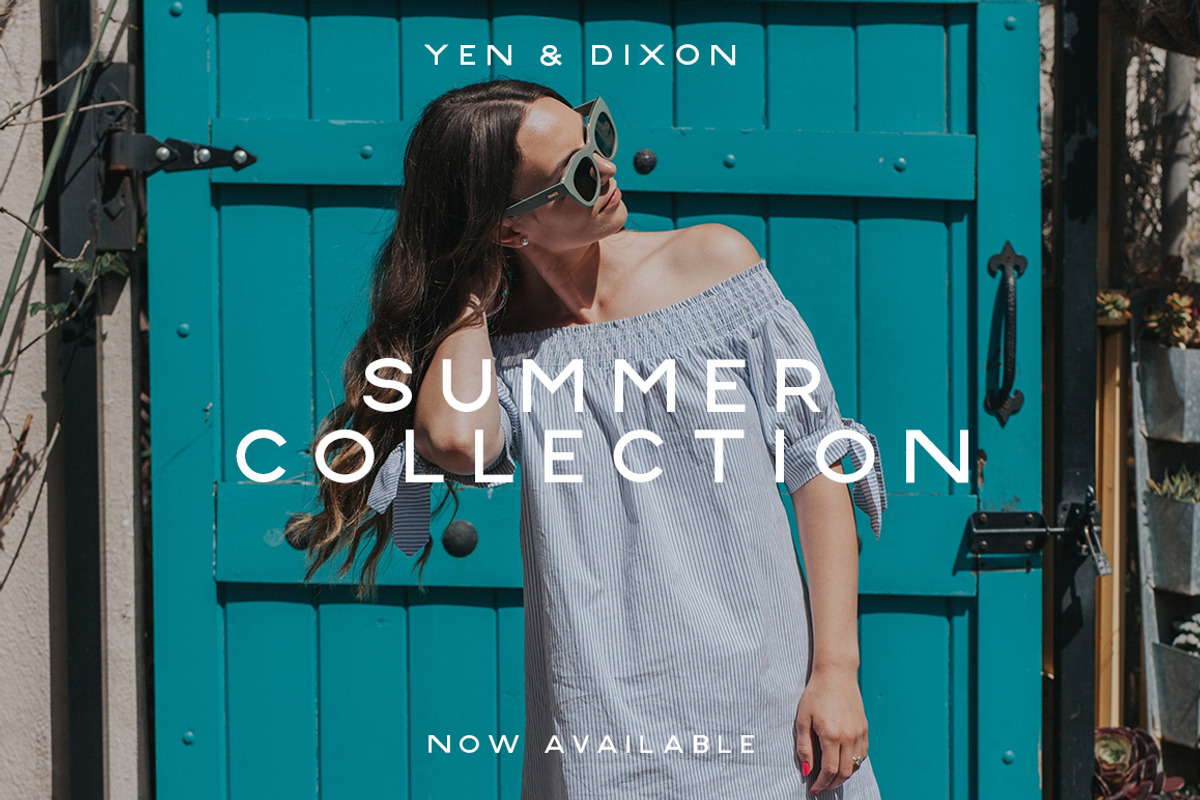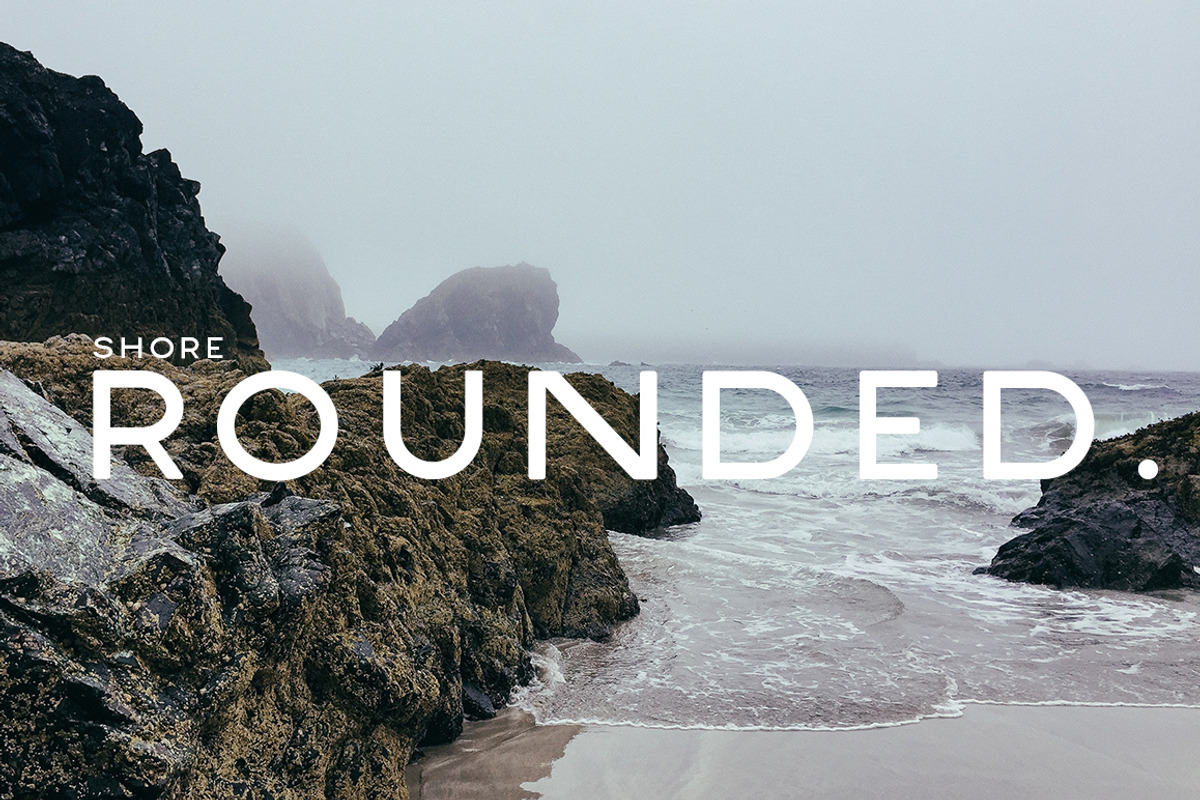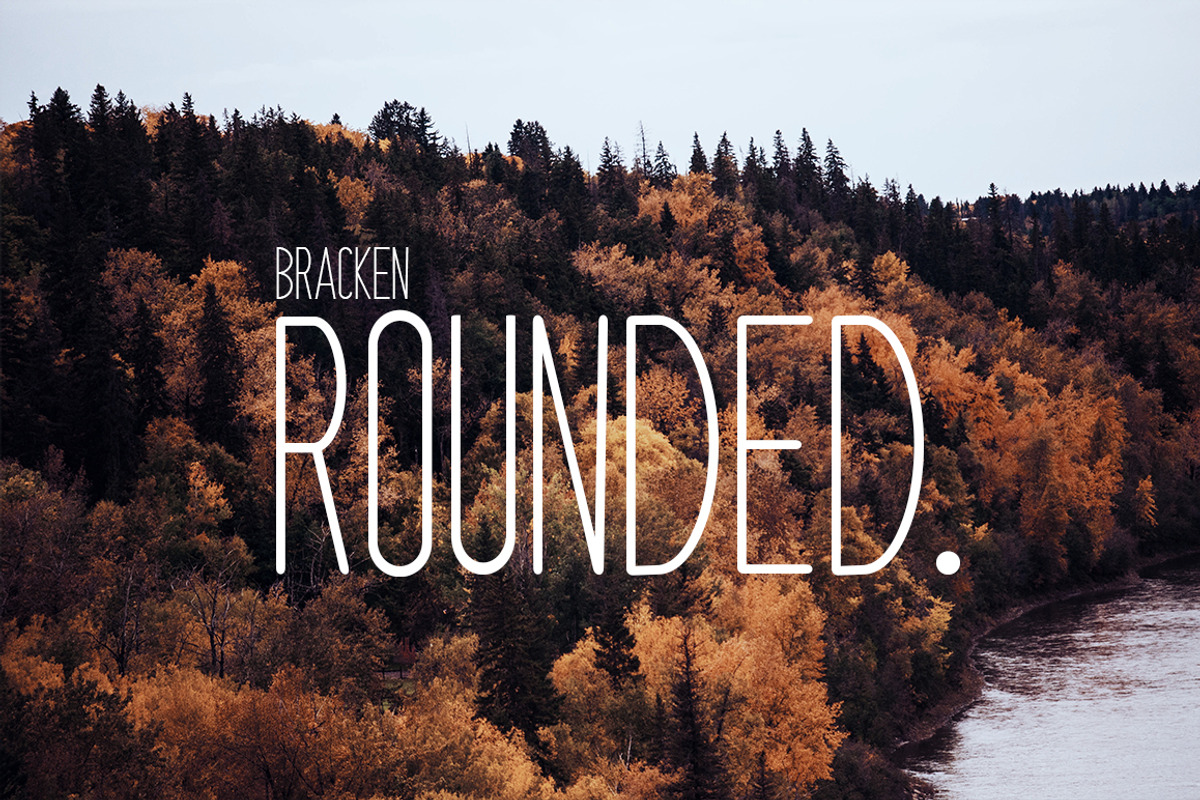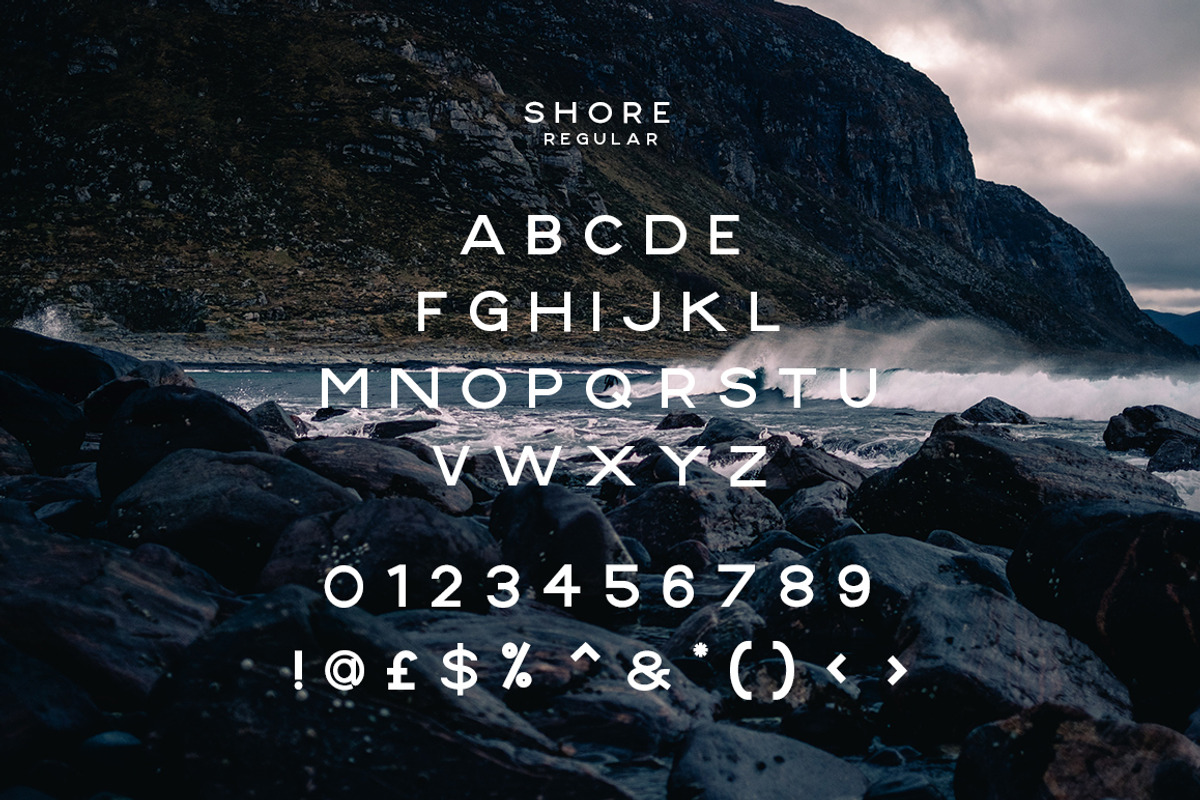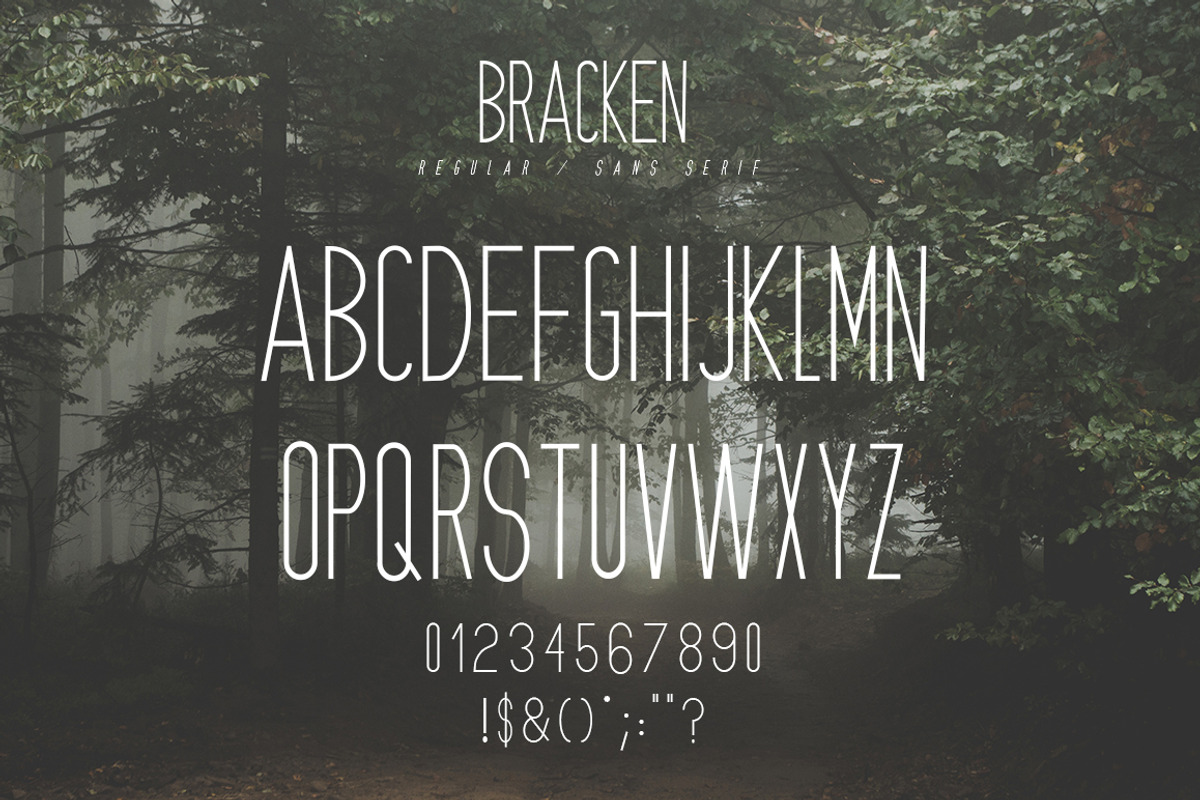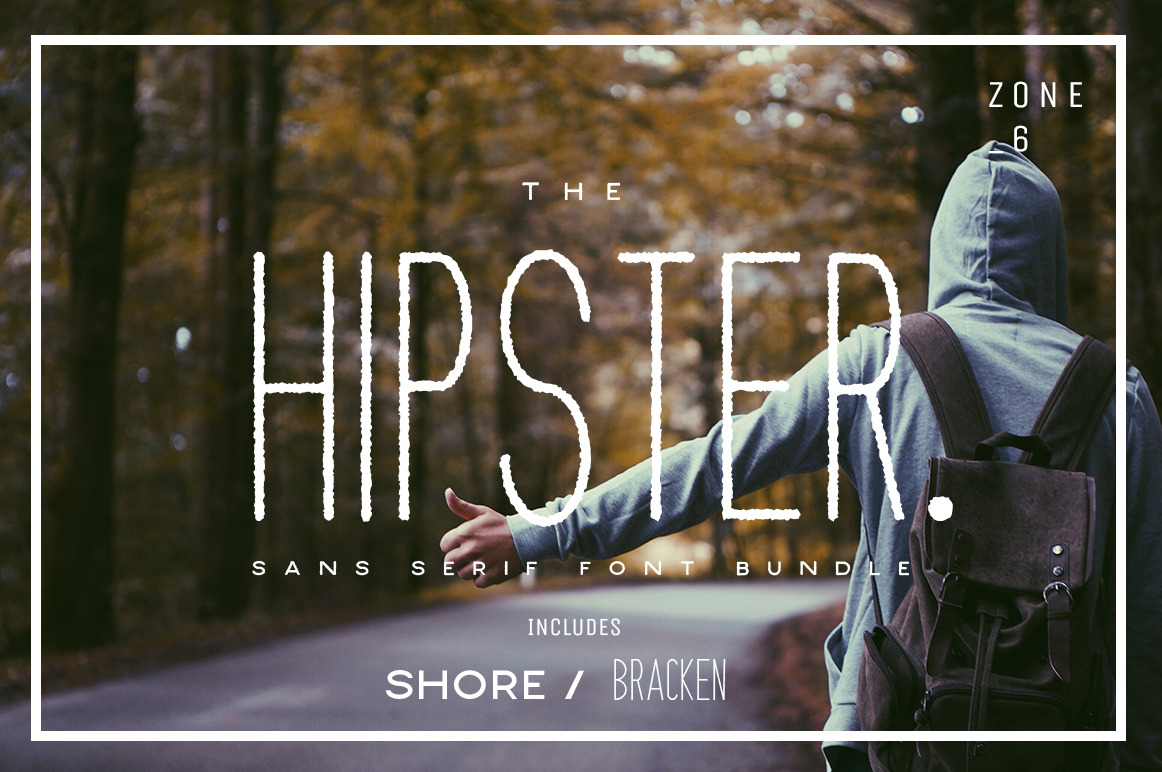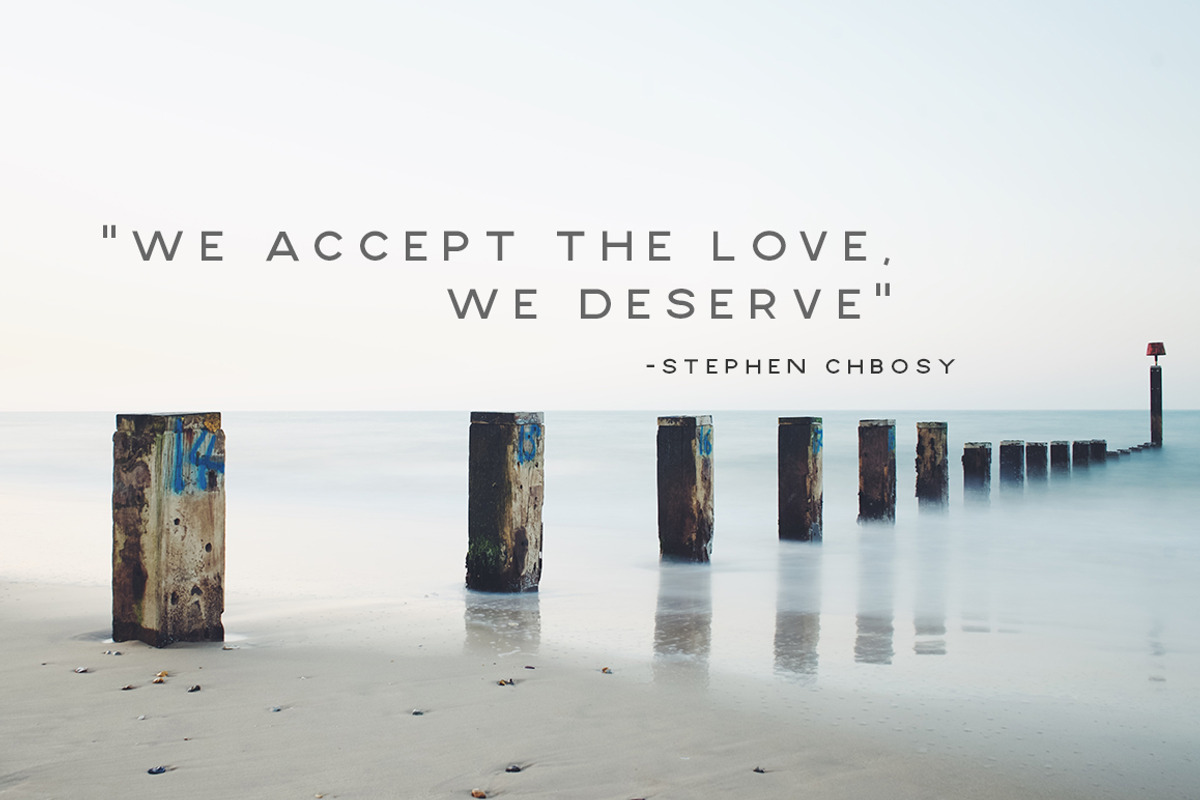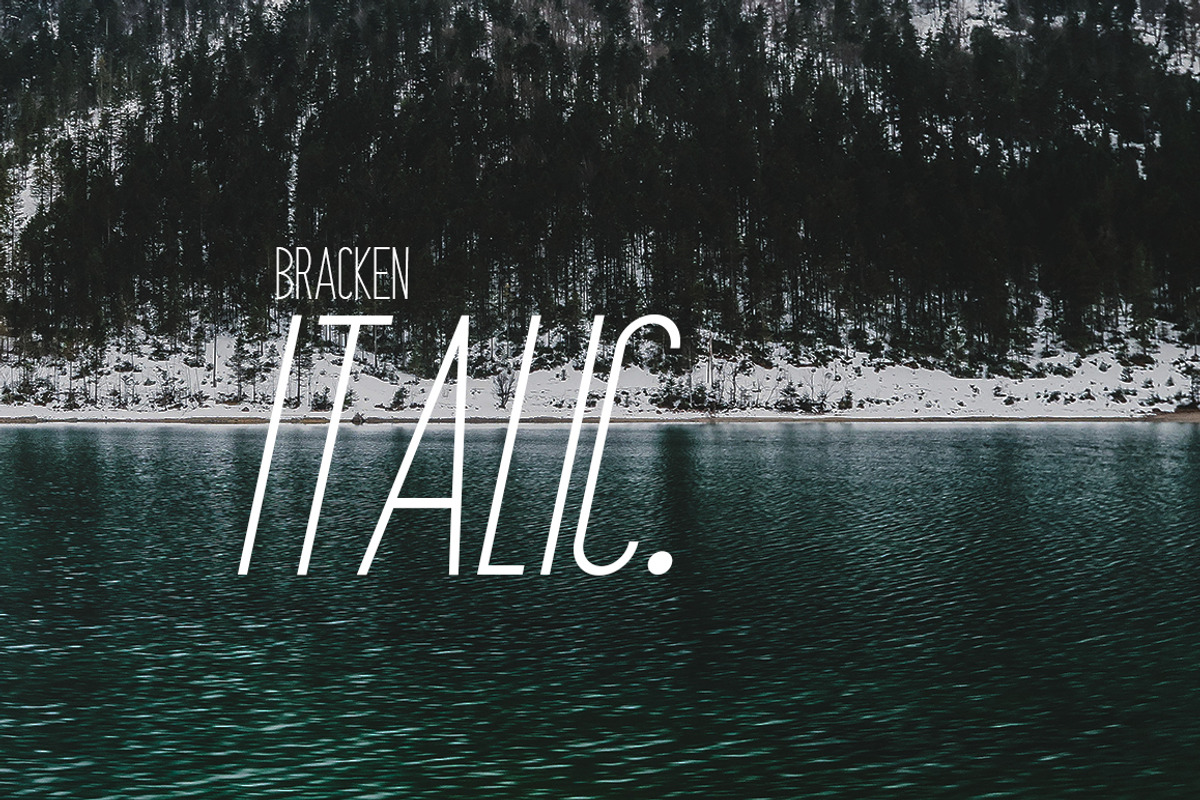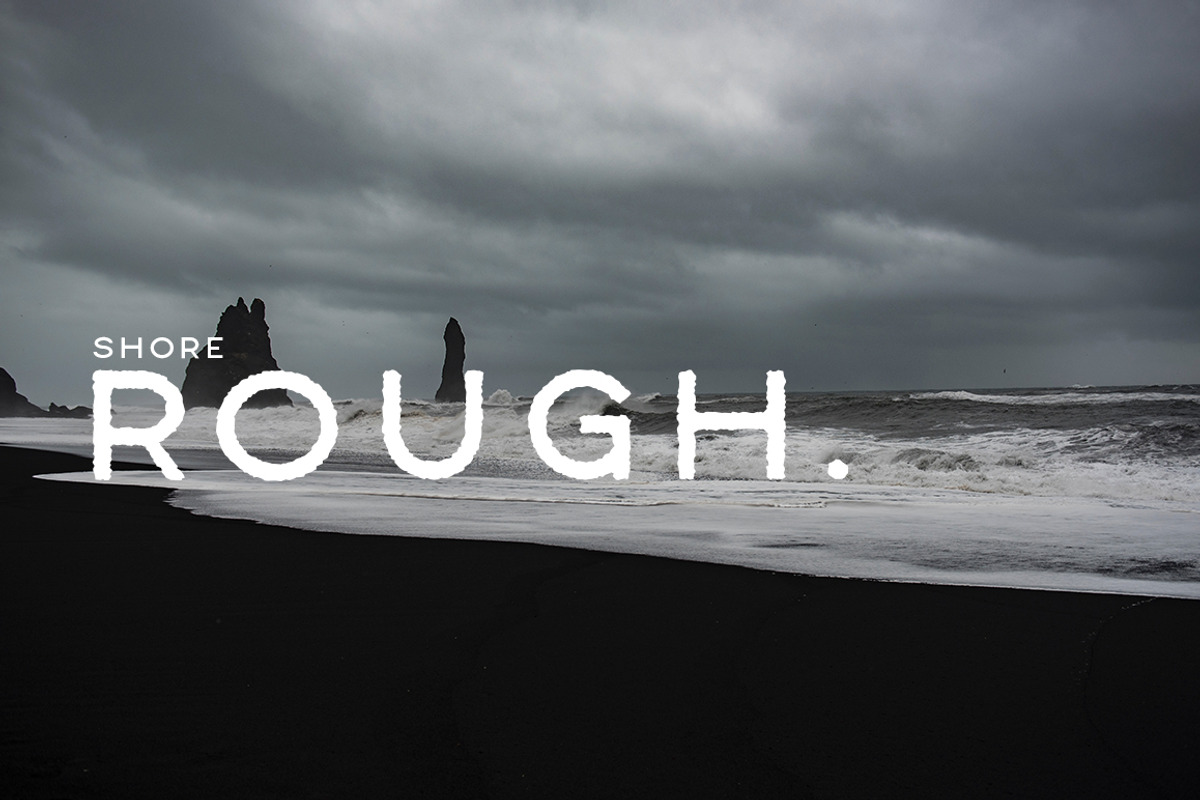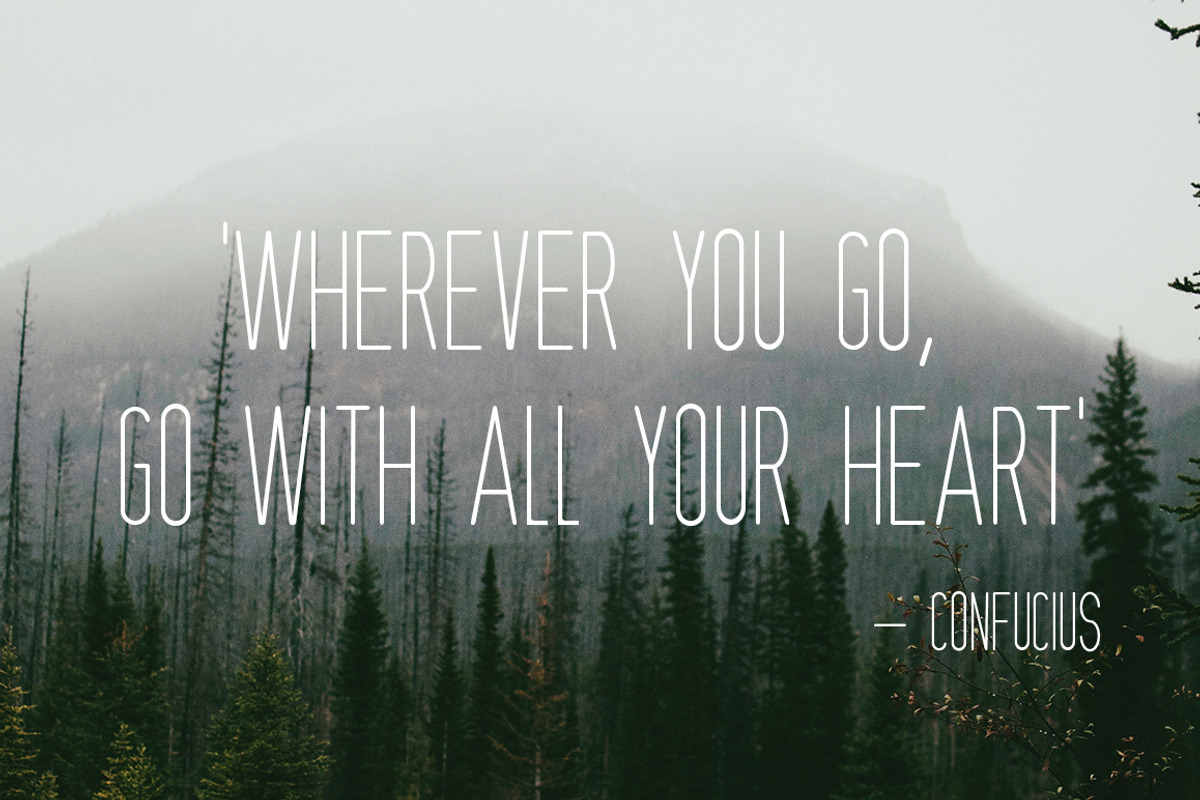
The Hipster Sans Serif Font Bundle
Included are 2 font families - Shore & Bracken.
Shore
Shore is a carefree, fun, yet sophisticated sans-serif font. Its clean lines and smooth rounding makes for the perfect font to use for contemporary designs with a hipster edge.
Bracken
Bracken is a fun & quirky sans-serif font. Its thin lines and handwritten style helps to create cool, striking designs to appeal to a young and hip target market.
These fonts compliment each other perfectly in order to create lively, fresh and unique designs - suitable for logos, signage, editorial, branding, packaging and much more!
- 12 Fonts Included - Each Containing Original, Rough, Rounded & Italic Versions
So if you’re looking for a font collection containing everything you need to create stand-out designs, then the Hipster Sans-Serif Font Bundle is for you.